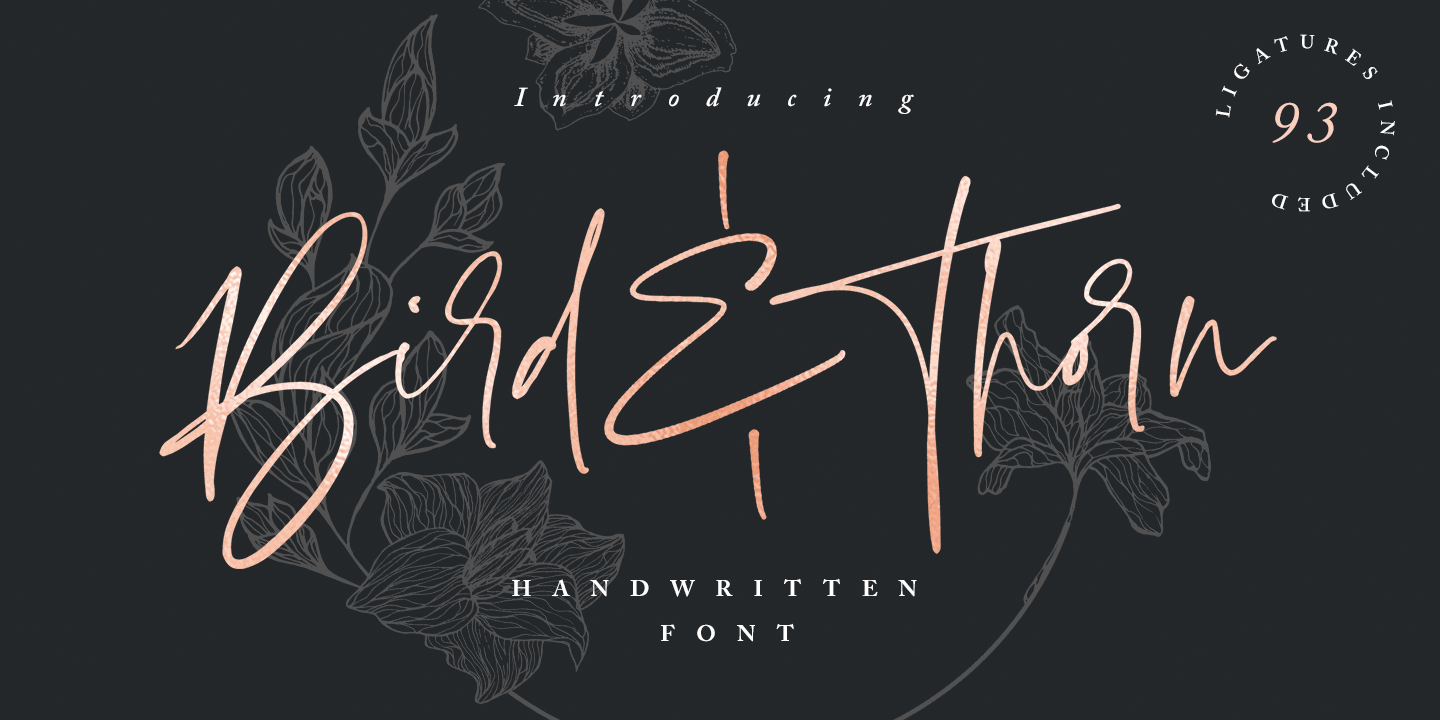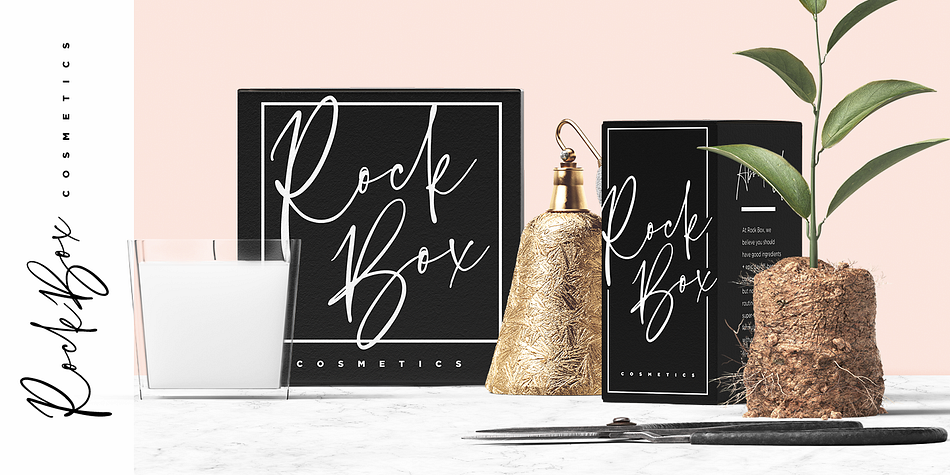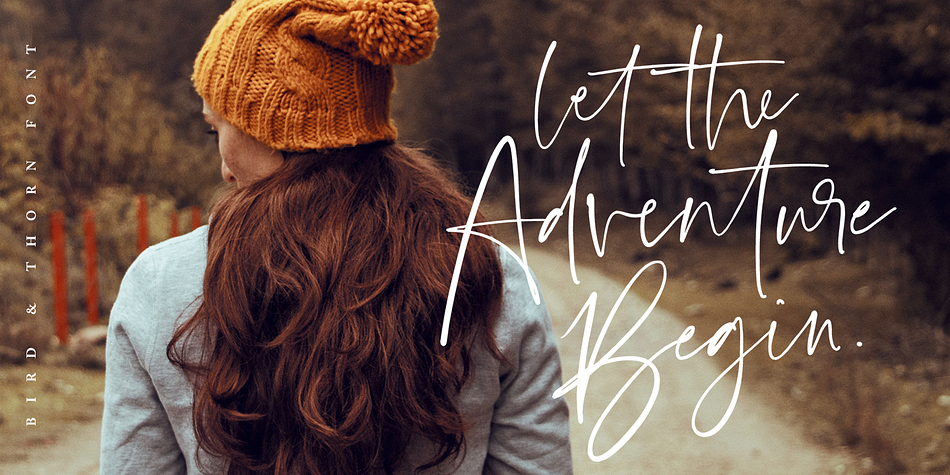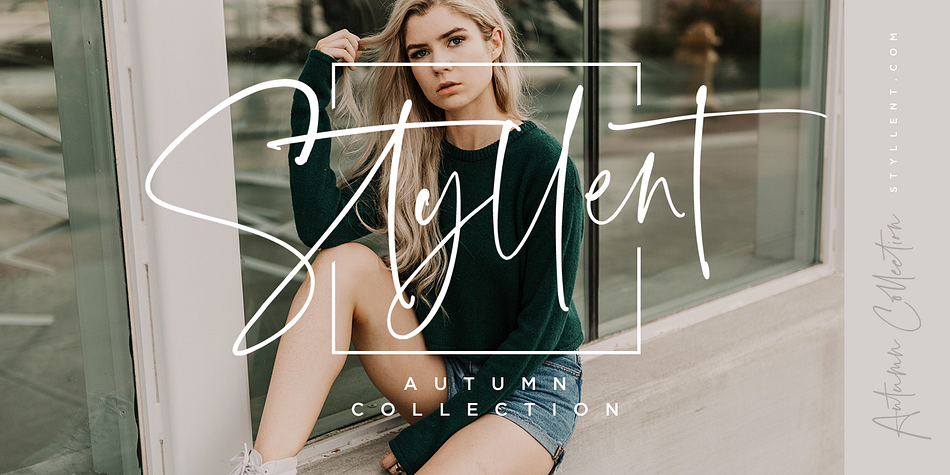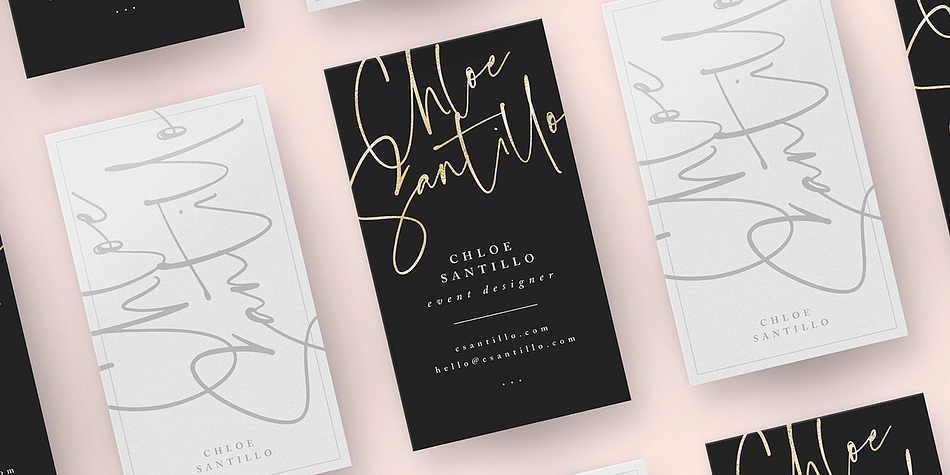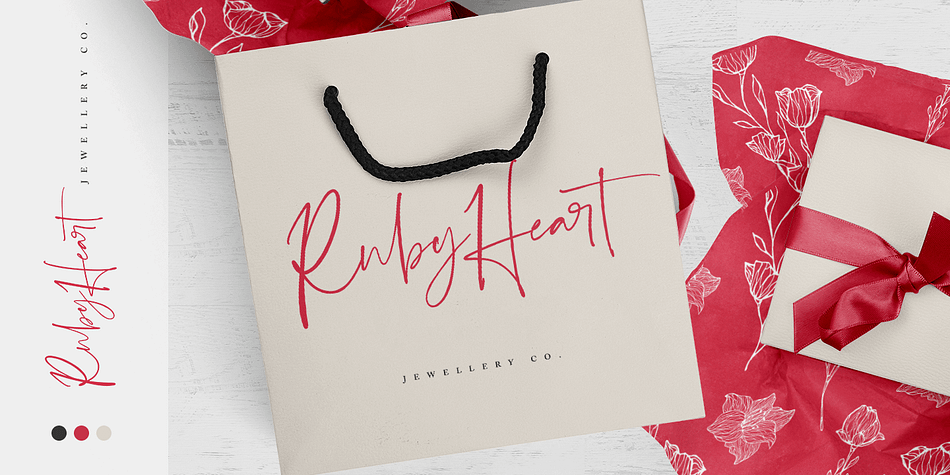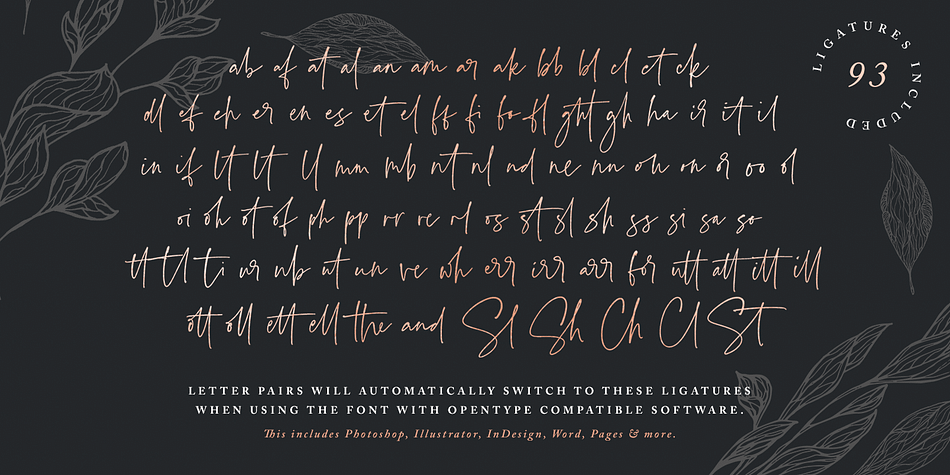
Designed by Sam Parrett, Bird And Thorn is a modern calligraphy and script font published by Set Sail Studios.
Introducing Bird & Thorn; A vivacious & expressive script font with a stylish quality. Bird & Thorn is completely hand-drawn and designed to perfectly re-create natural handwriting; this is achieved by the addition of 93 custom ligatures. These double letters connect and flow much more authentically and are guaranteed to give your text that extra quality and distinction. It’s the perfect choice for stylish branding & logo projects, product packaging, handwritten quotes & editorial design.